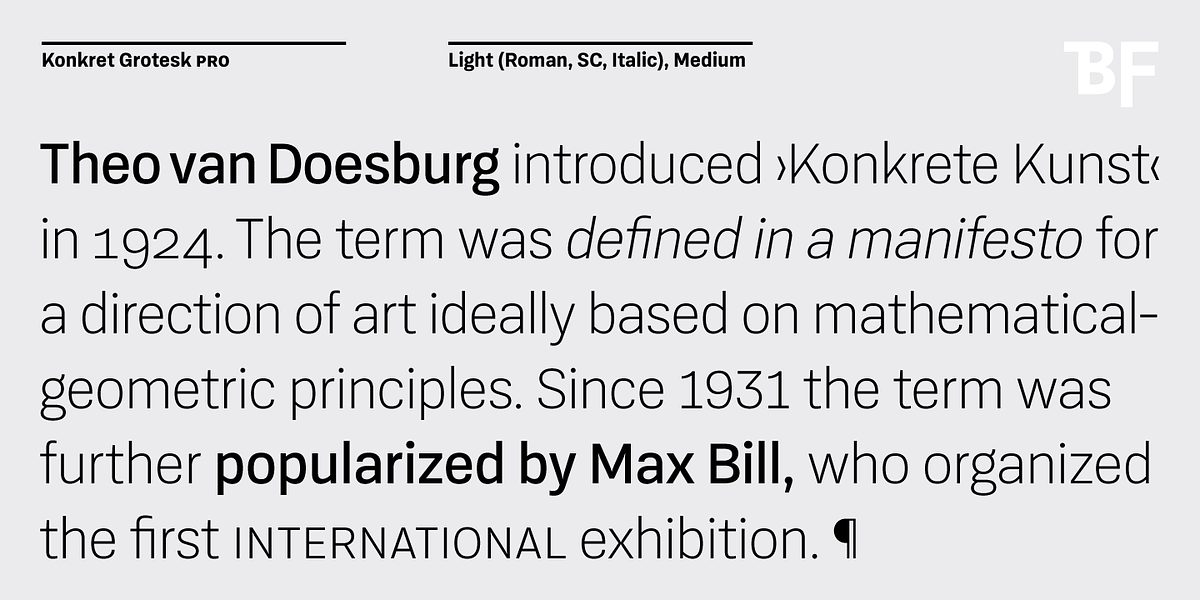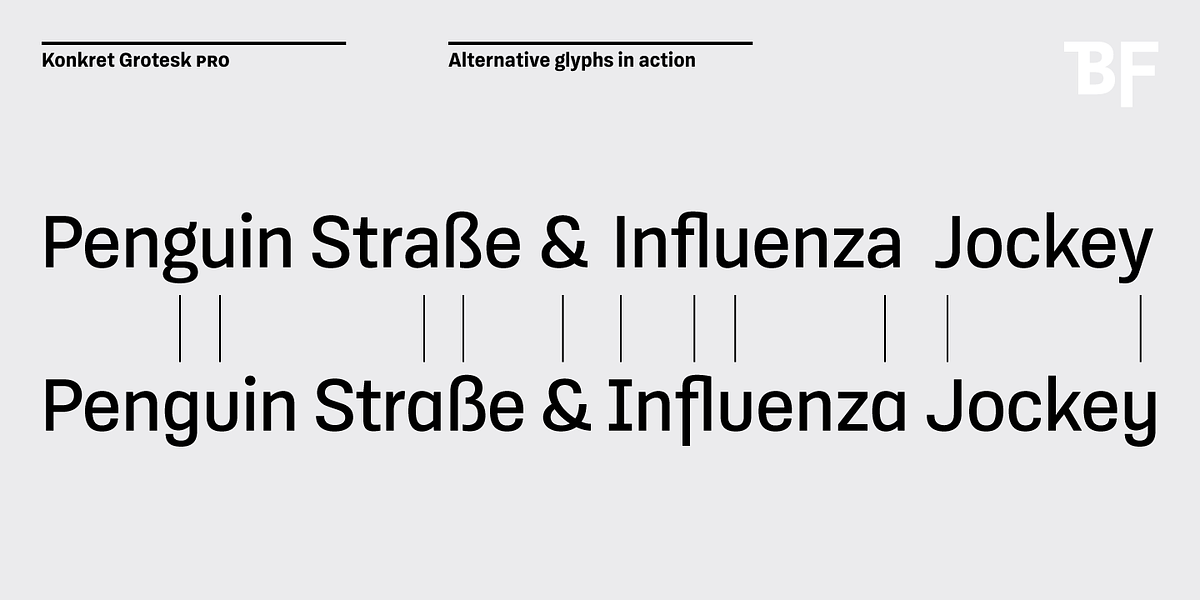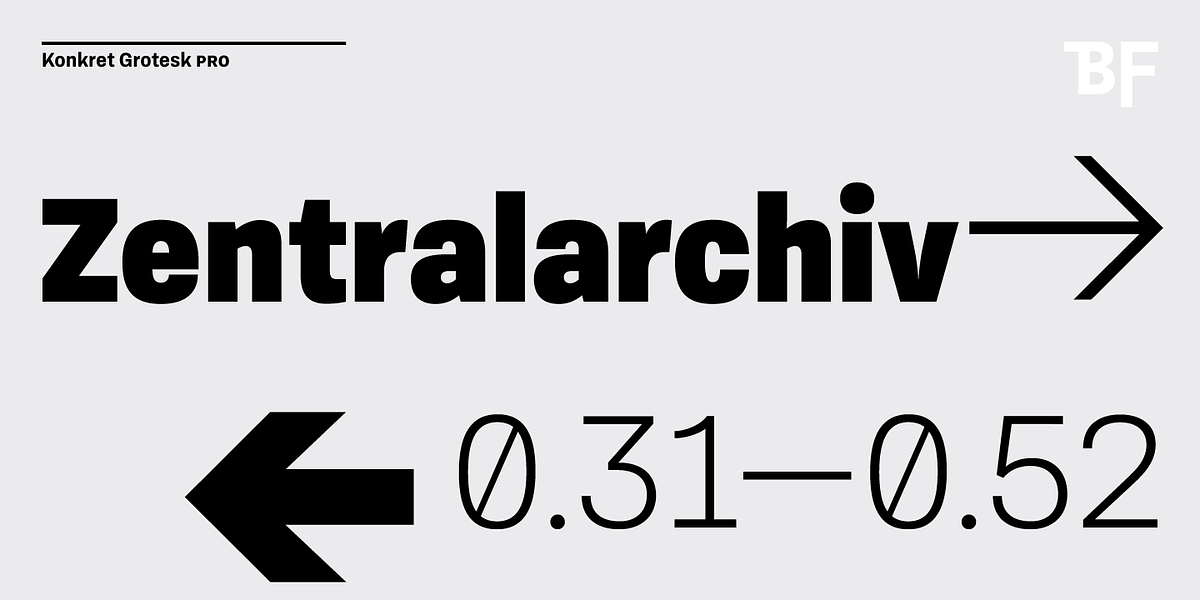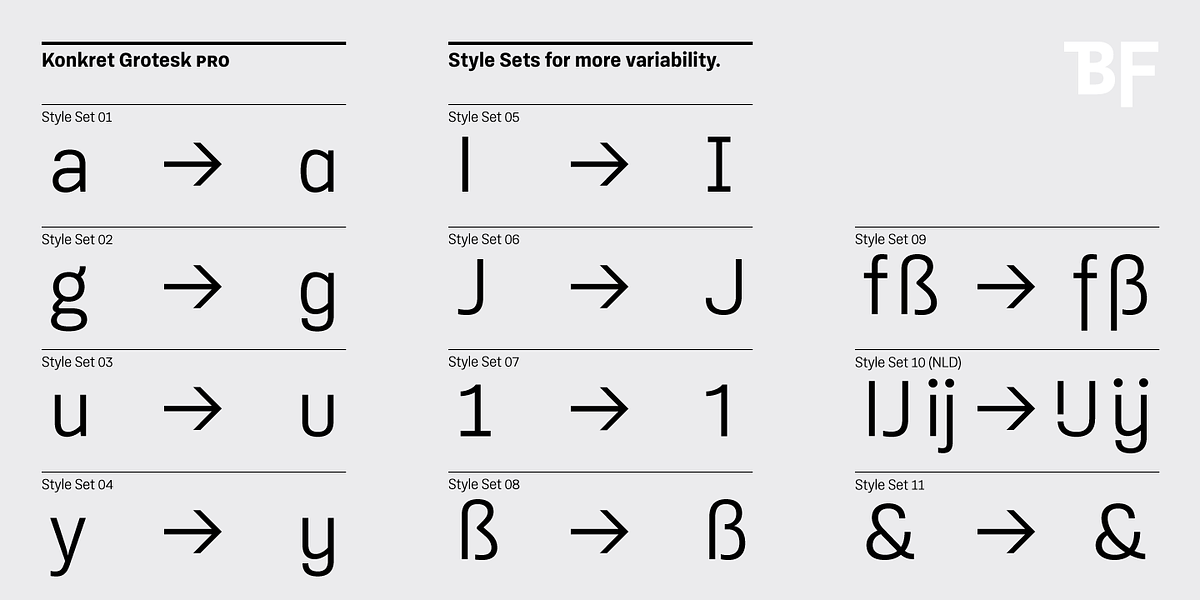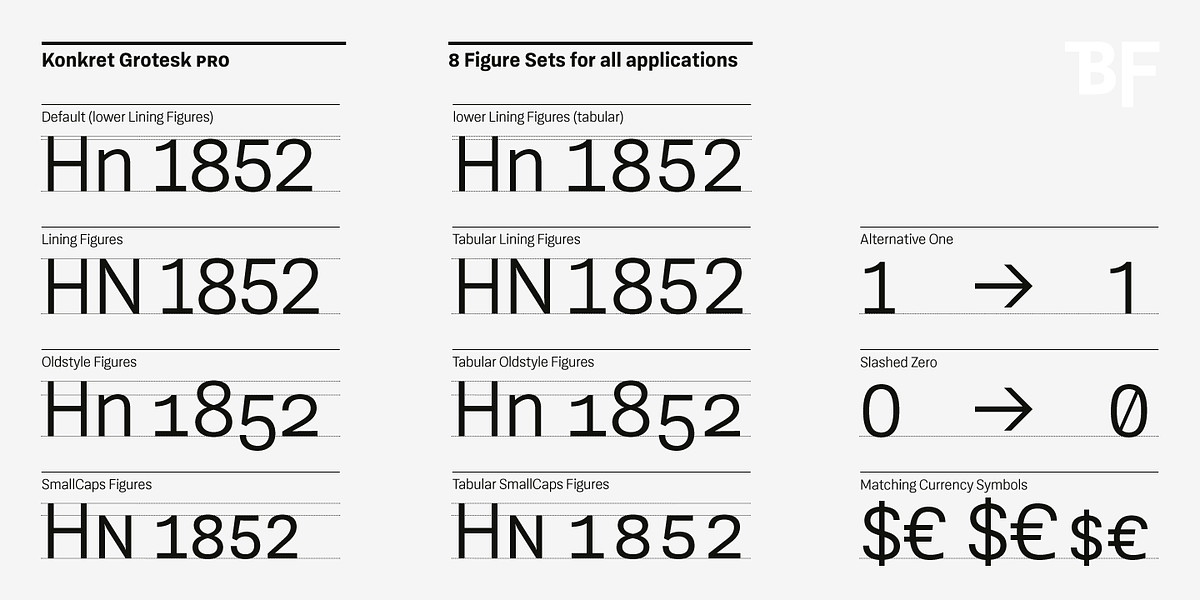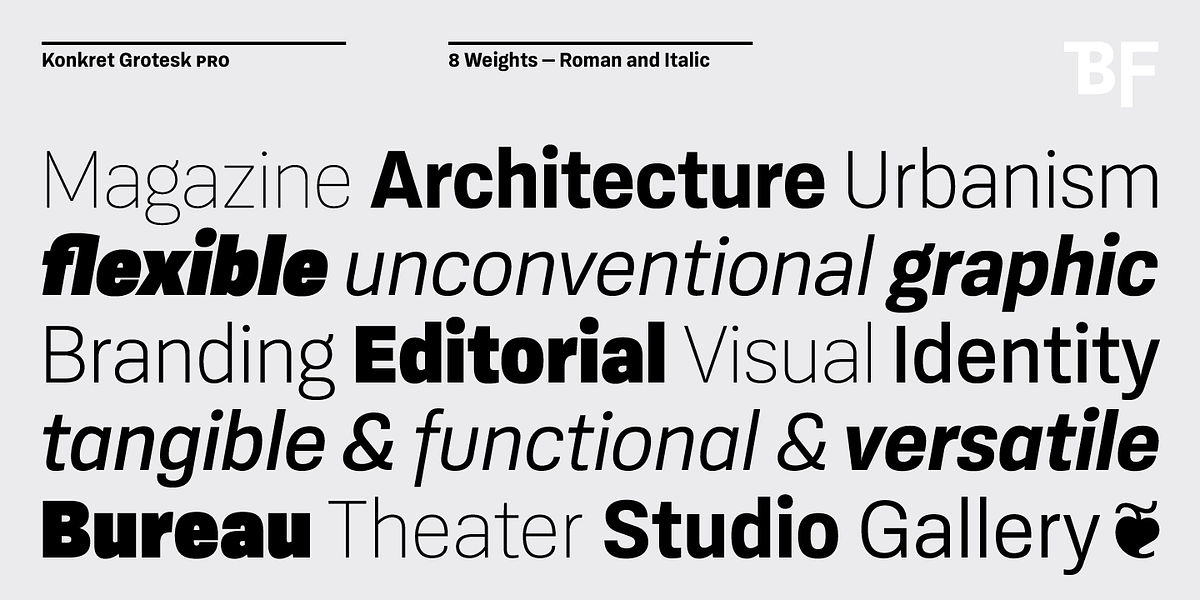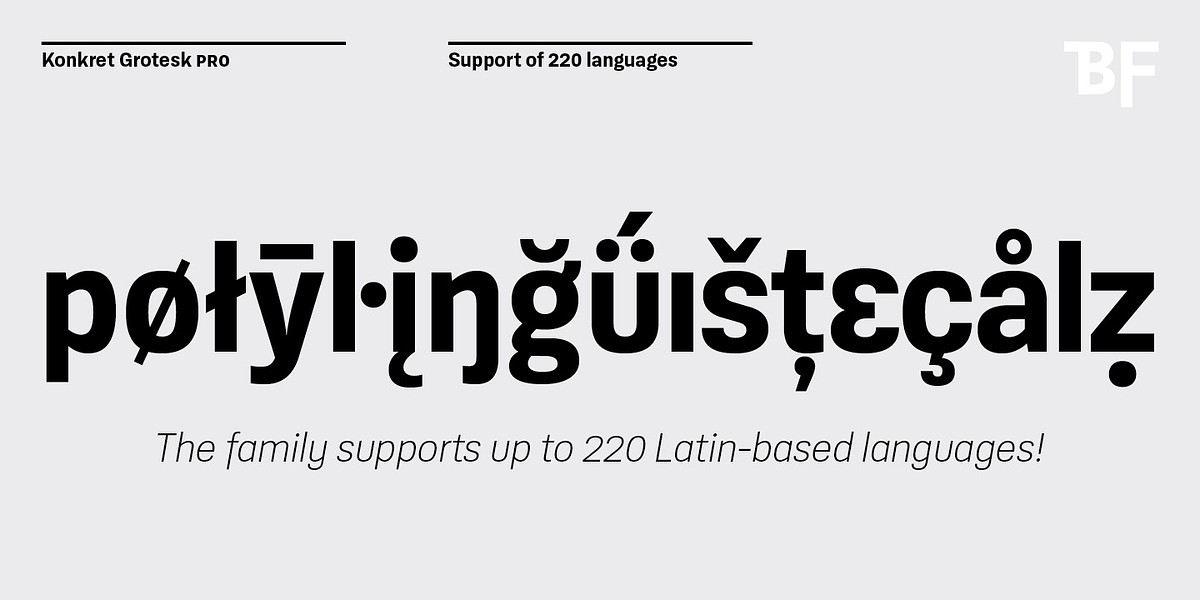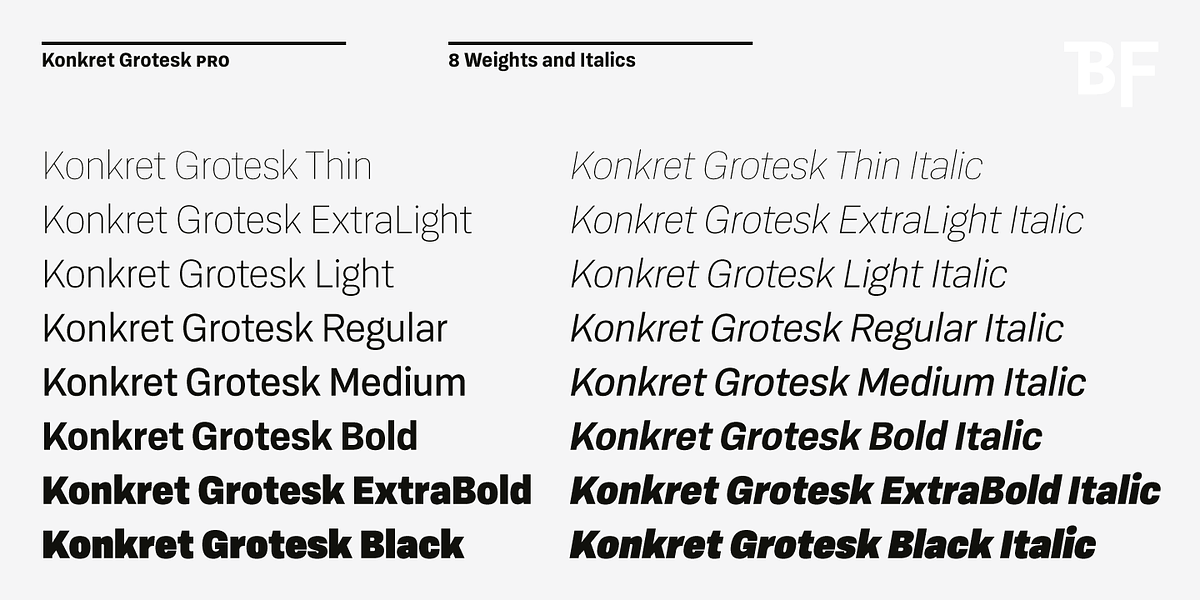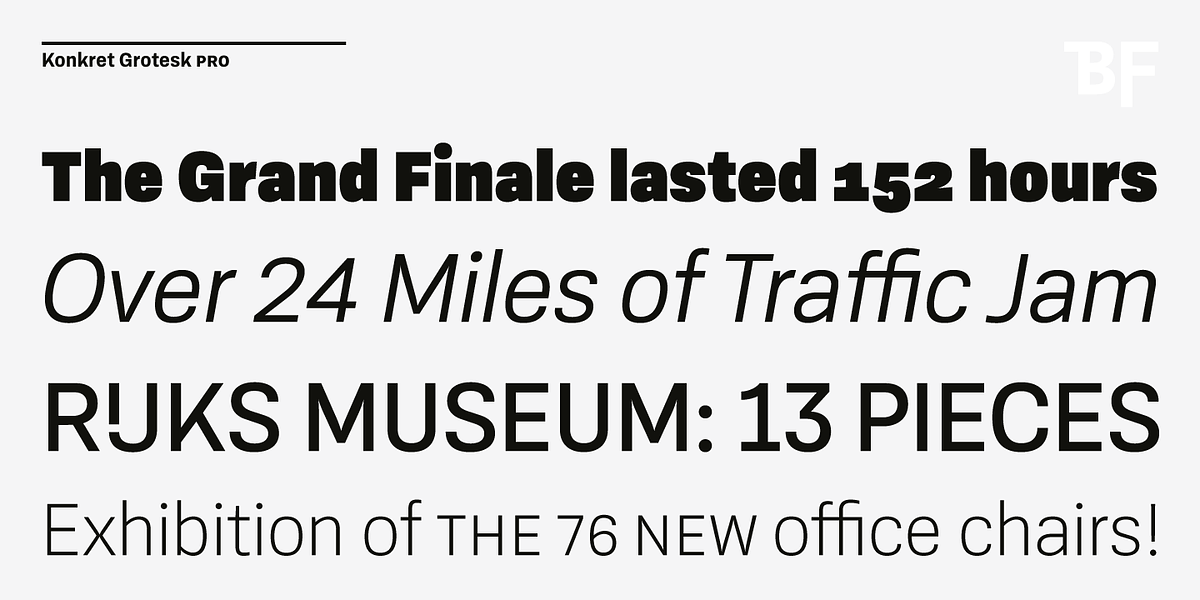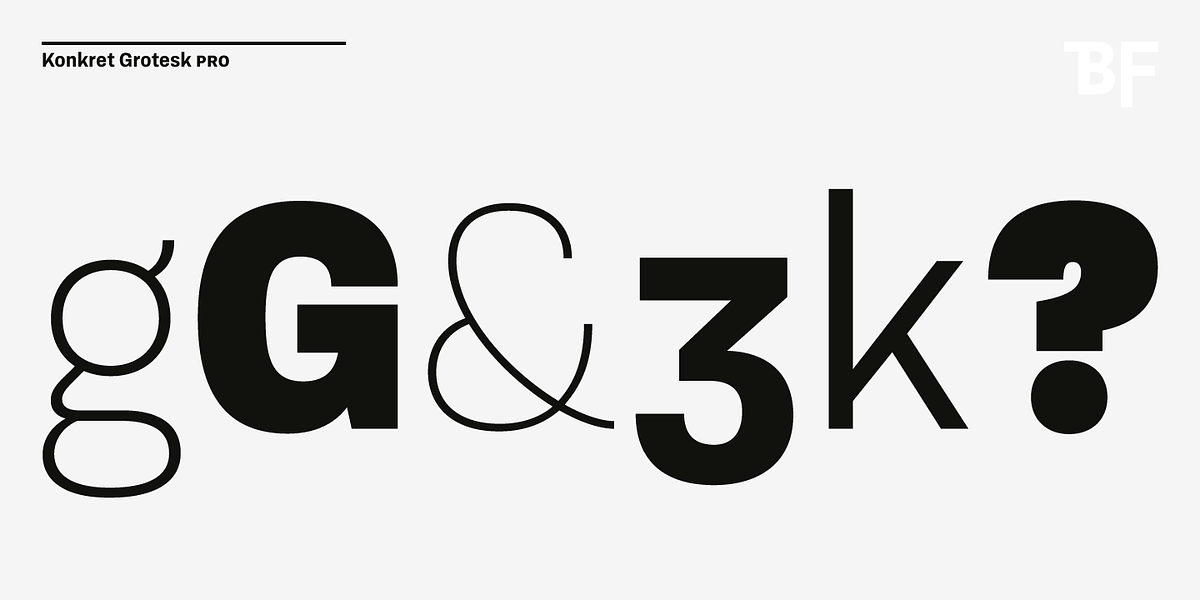
BF Konkret Grotesk Pro
BF Konkret Grotesk Pro is a contemporary take on the classic grotesque sans-serif style. Designed by Guido Schneider, it boasts a unique blend of elegance and edge, making it adaptable to diverse typographic tasks. The typeface family includes a wide range of weights, small caps, ligatures, and alternate characters, enabling designers to customize its appearance without compromising its core identity. Its versatility extends to both body text and display applications, proving suitable for editorial design, branding, posters, and advertising.